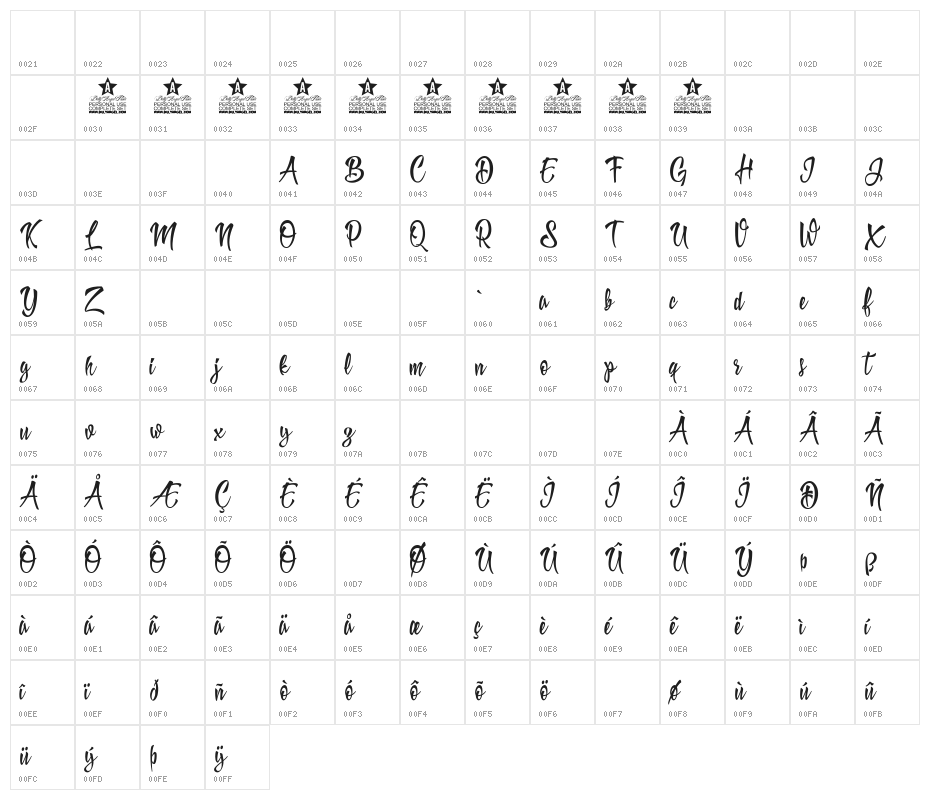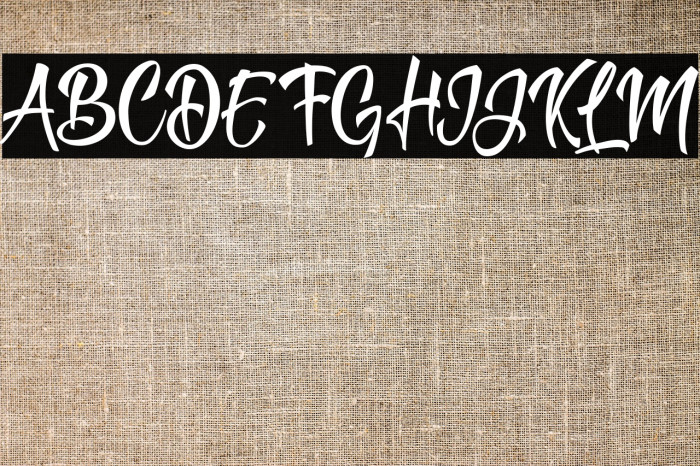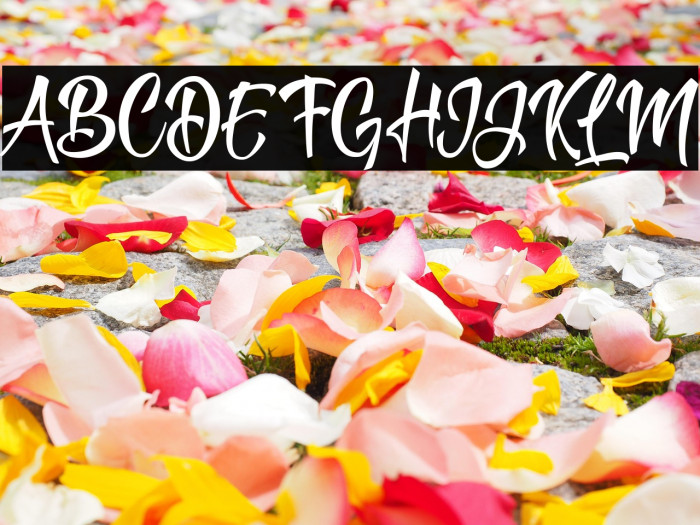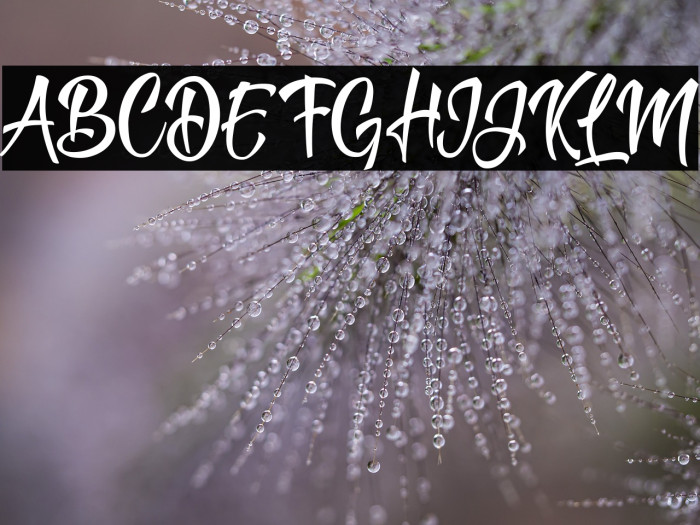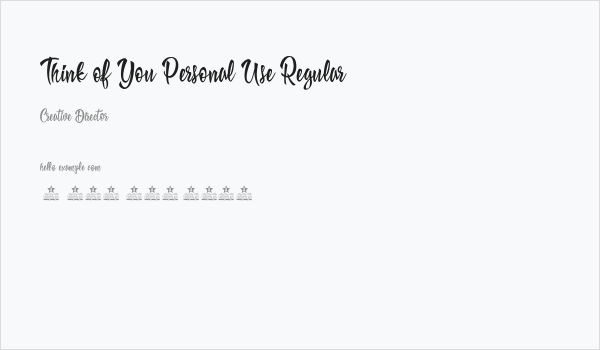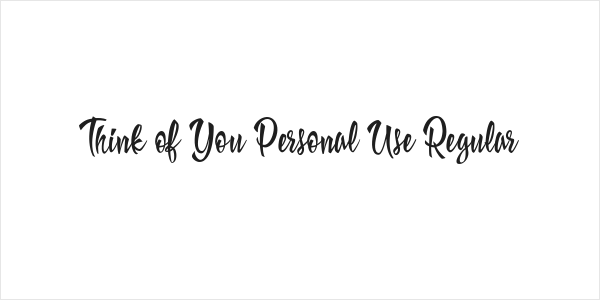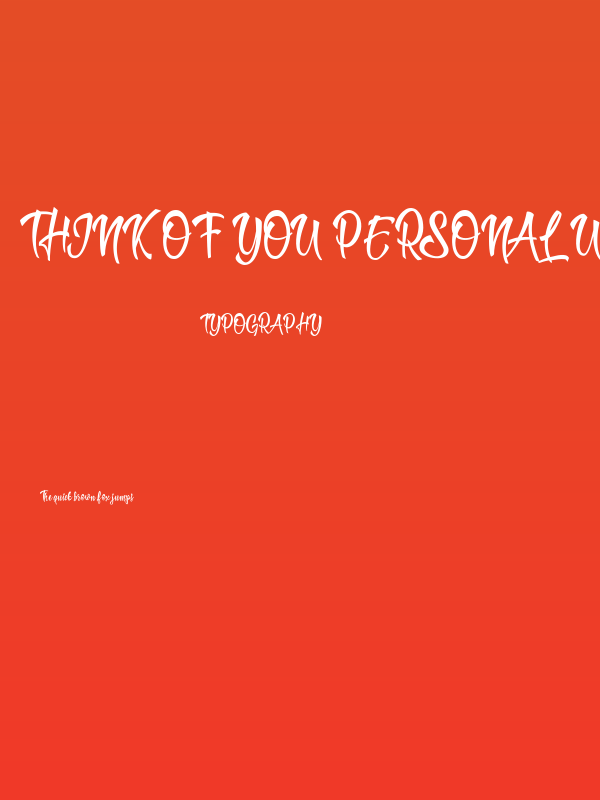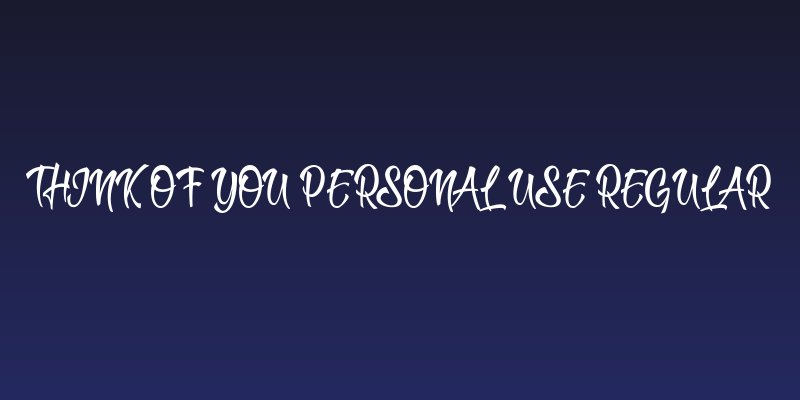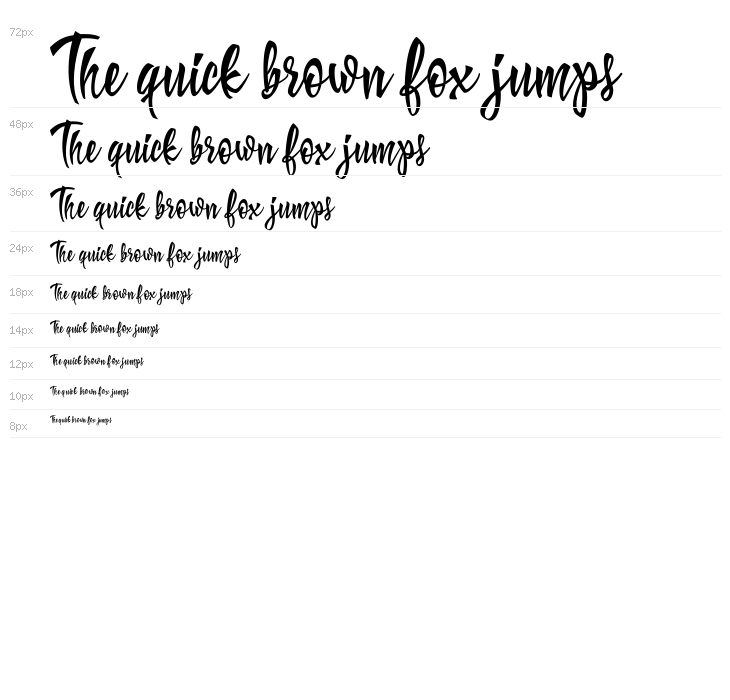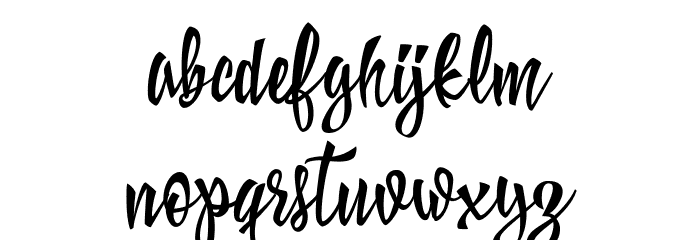
Think of You Personal Use Regular Font
Think of You Personal Use Regular Description
This font features a dynamic and flowing script style, characterized by its elegant and fluid letterforms. The uppercase letters are bold and expressive, with sweeping curves and a sense of movement that adds a touch of sophistication. The lowercase letters maintain a consistent style, with a slightly more compact form that complements the uppercase. The font's overall appearance is both stylish and approachable, making it suitable for a variety of design projects. The characters are well-spaced, ensuring readability while maintaining the artistic flair of the script. This font is ideal for creating eye-catching headlines, invitations, and branding materials that require a personal and artistic touch.
| Proposed Projects | Ideal for wedding invitations, branding, logos, and decorative headlines. |